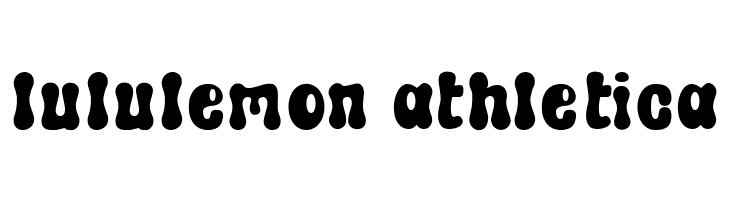
A modern, futuristic font with thin lines and rounded edges.
A classic serif font with high contrast and elegant curves.
A bold, geometric font with a modern and dynamic design.
A bold, 3D decorative font with a filled interior and shadow effect.
A bold, filled, and outlined font with a modern and striking appearance.
A bold, distressed font with a grunge aesthetic and textured, worn appearance.
A bold, decorative font with a three-dimensional shadow effect.
A bold, graffiti-inspired font with a raw, urban aesthetic.
A bold, jagged font with an electrifying outline, perfect for dynamic and playful designs.
A bold, graffiti-inspired font with a playful and energetic style.
Bold, casual handwritten script with energetic strokes.
A playful, hand-drawn font with quirky, energetic letterforms.
A bold, textured font with a distressed, gritty appearance.
A modern, geometric font with rounded edges and consistent strokes.
A bold, cursive font with a flowing, handwritten style.
A bold, dynamic font with brush-like strokes and a playful style.
Elegant handwritten script font.
A bold, brush-style font with dynamic, hand-drawn strokes.
A flowing, cursive font with a natural handwritten style.
A playful, casual handwritten font with a lively and informal style.
A bold, gothic-inspired font with sharp, angular lines and dramatic serifs.
A playful, casual handwritten font with smooth, flowing lines and a friendly appearance.
A bold, geometric font with sharp, angular edges and a modern style.
A decorative and geometric font with intricate uppercase and clean lowercase characters.
A whimsical font featuring playful stick figure characters.